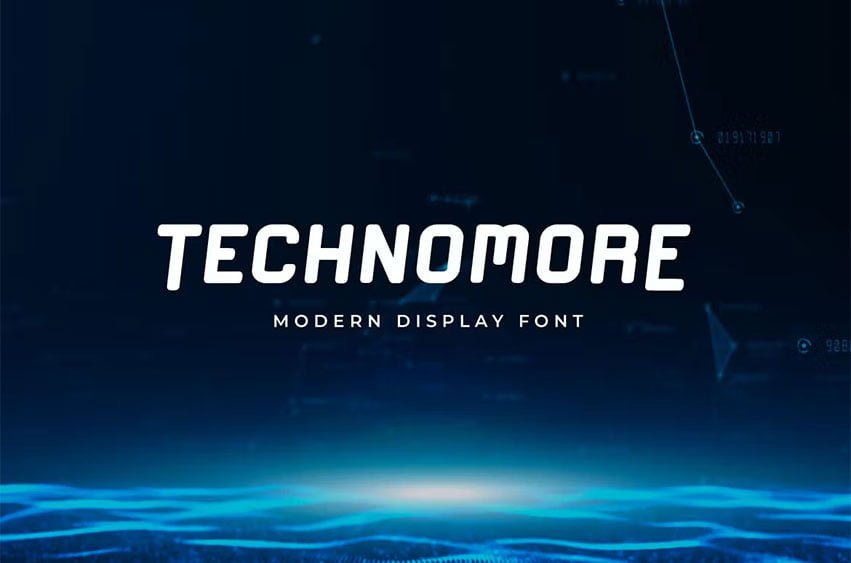
Technomore Font is a modern technology font. Technomore can be used in any work such as flyers, book titles, advertisements, social media content, logo and many more.